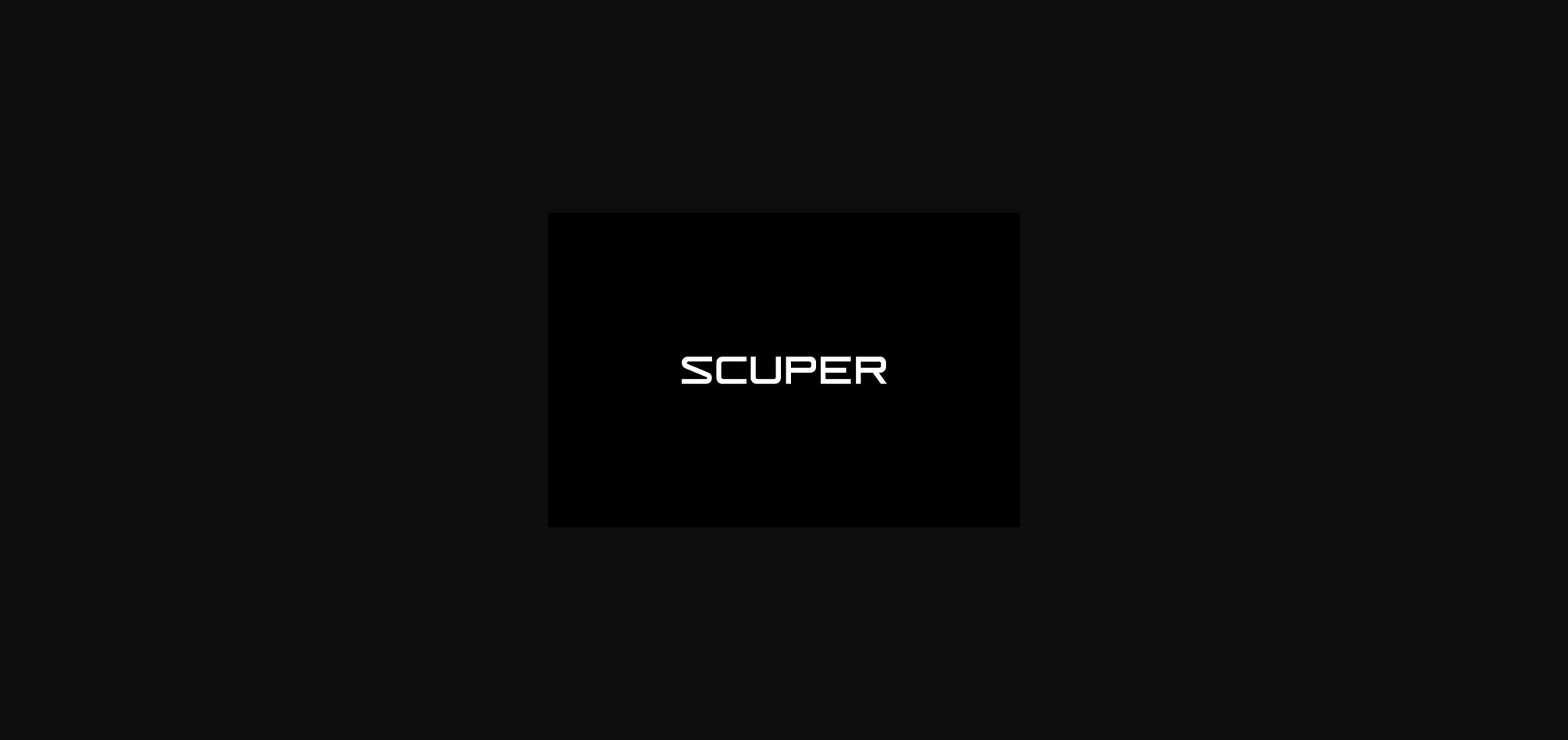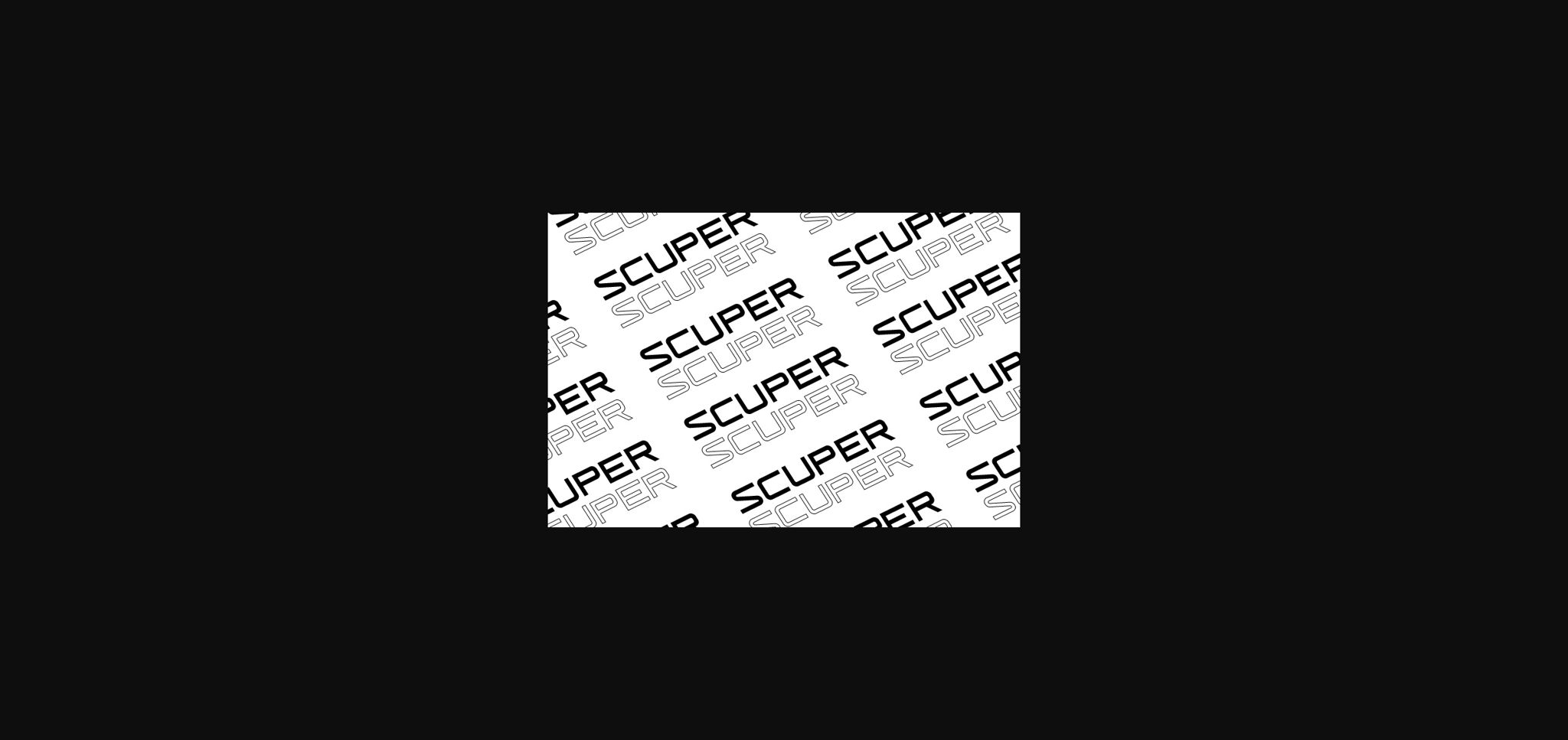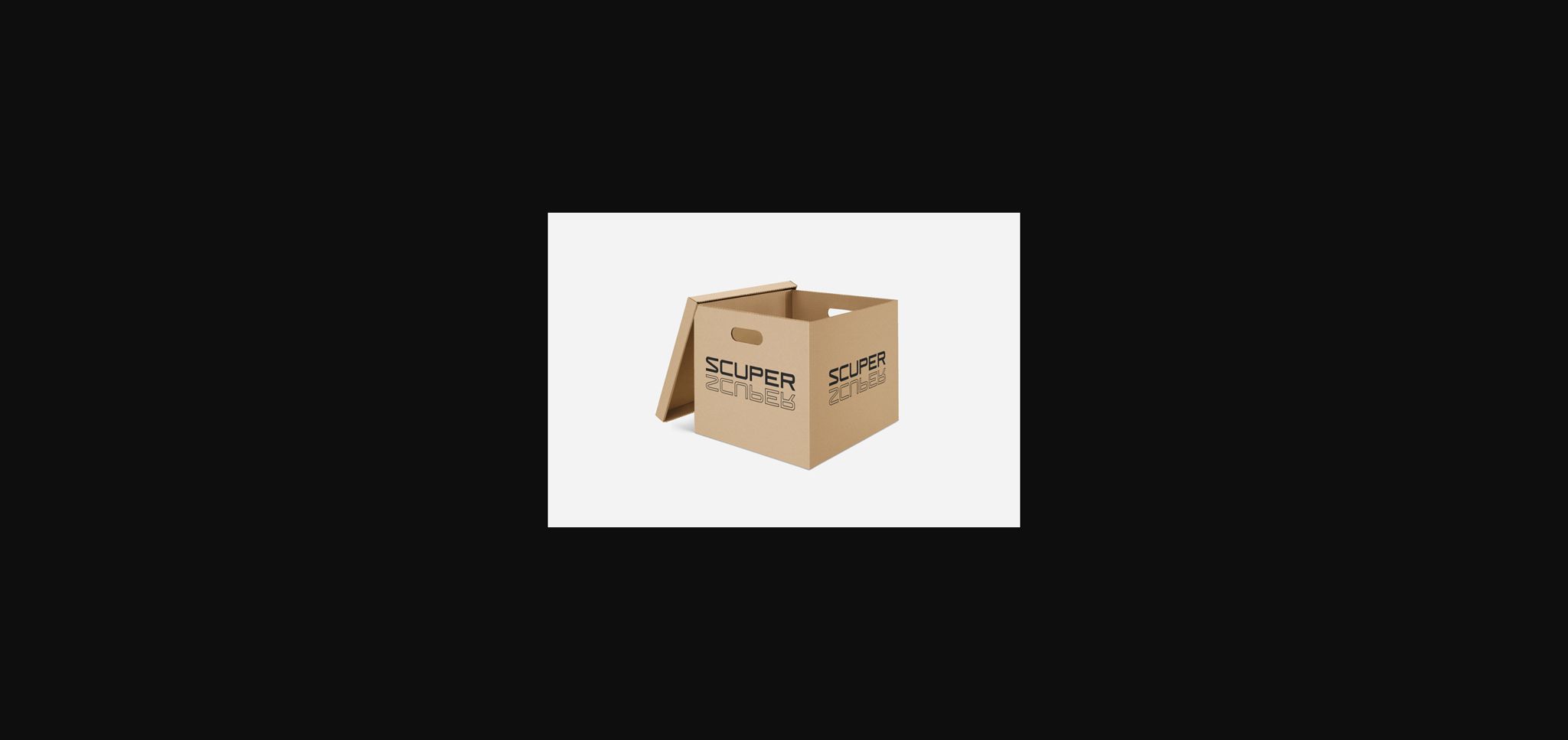
About Scuper Font
Scuper is a simple and casual sans serif font with an undeniably clean feel. With its neat and beautiful arrangement of letters, this typeface will look outstanding in both formal and non-formal designs.